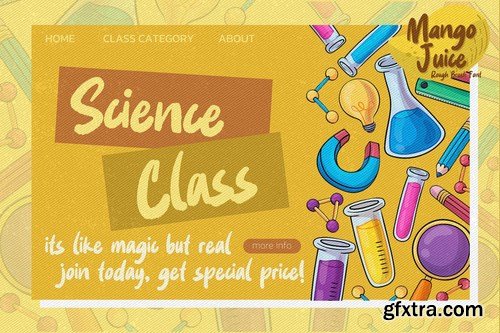
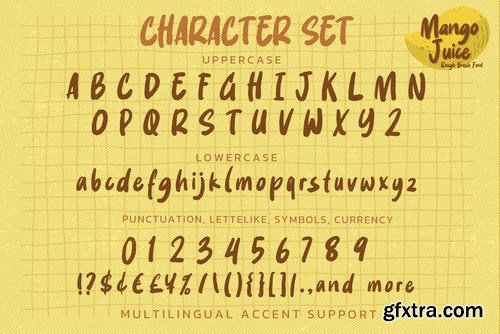
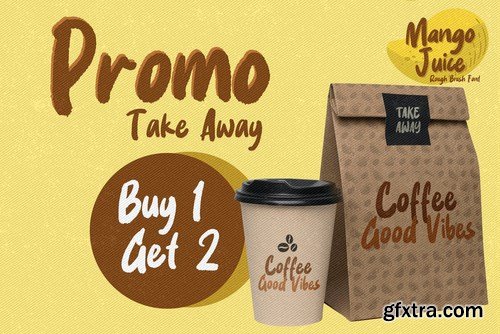
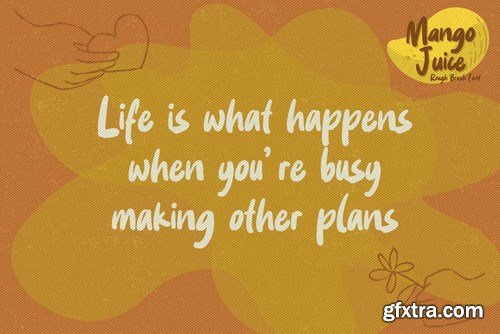
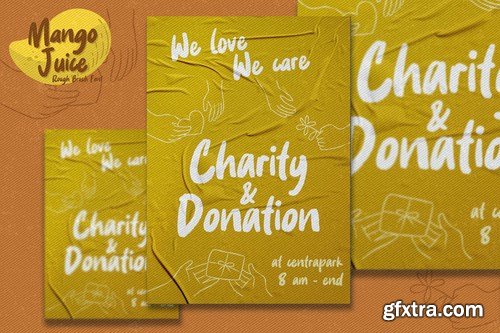
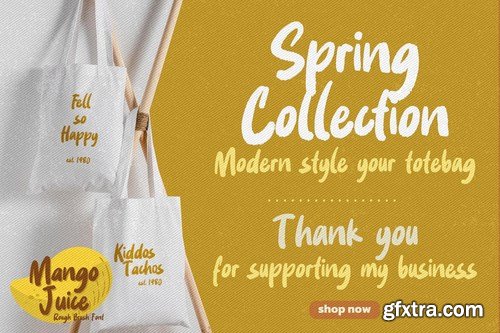
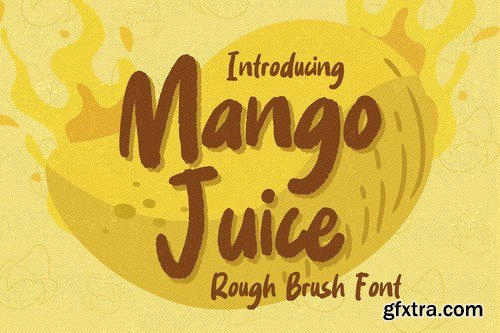
Hello Everyone, introduce our new product Font Mango Juice is a Rough Brush Font.This is a Textured Natural Style and Authentic Brush style with a clear style and dramatic movement.
Daheng Font - Modern Font is a bold and authentic display font. The font is suitable for any branding project like logo, t-shirt printing, Feminine, and many more. outstanding in a wide range of contexts.
Coopslight is a tall expressive signature font. With medium stroke, fun character with a bit of ligatures and alternates. To give you an extra creative work. Coopslight font support multilingual more than 100+ language. This font is good for logo design, Social media, Movie Titles, Books Titles, a short text even a long text letter and good for your secondary text font with sans or serif. Make a stunning work with Coopslight font.
Hi ladies & gentlemen, this is one of our fonts suitable to complement your digital and printed creative products. This font is perfect for posters, social media posts, branding, personal projects, etc.
Smooth Loving is a modern calligraphy font, It has lowercase heart connecting heart, beginning and ending swashes. It is perfect for branding,logo, wedding invites, every other design which needs a handwritten romantic touch.
Hi ladies & gentlemen, this is one of our fonts suitable to complement your digital and printed creative products. This font is perfect for posters, social media posts, branding, personal projects, etc.